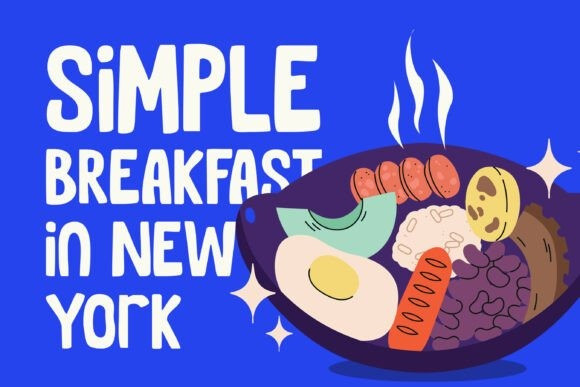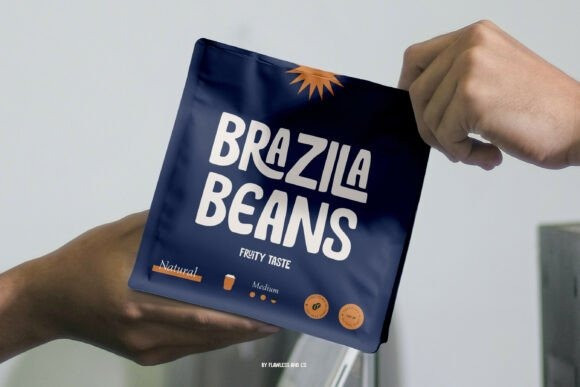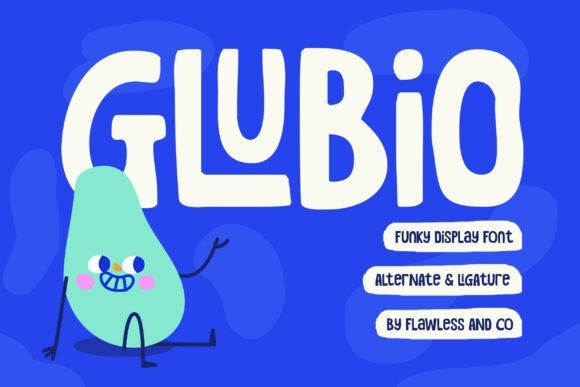
Glubio Font
Glubio Font is a funky display font bursting with personality, creativity, and playful energy. Designed with bold shapes, quirky letterforms, and expressive curves, Glubio delivers a fun and eye-catching visual style that instantly stands out. Its unique character brings a lively and cheerful atmosphere to every design, making it perfect for projects that want to feel fresh, exciting, and full of imagination.